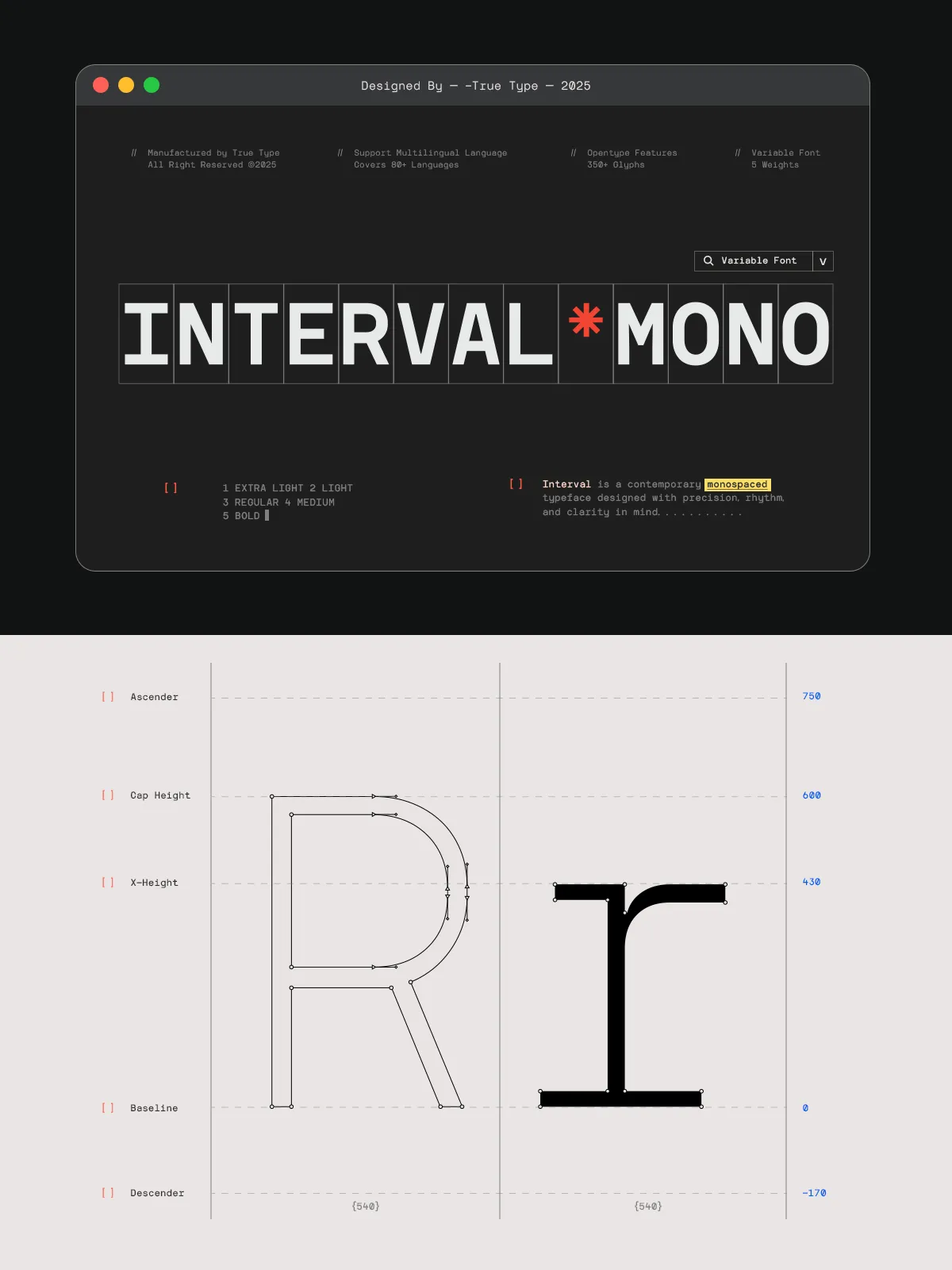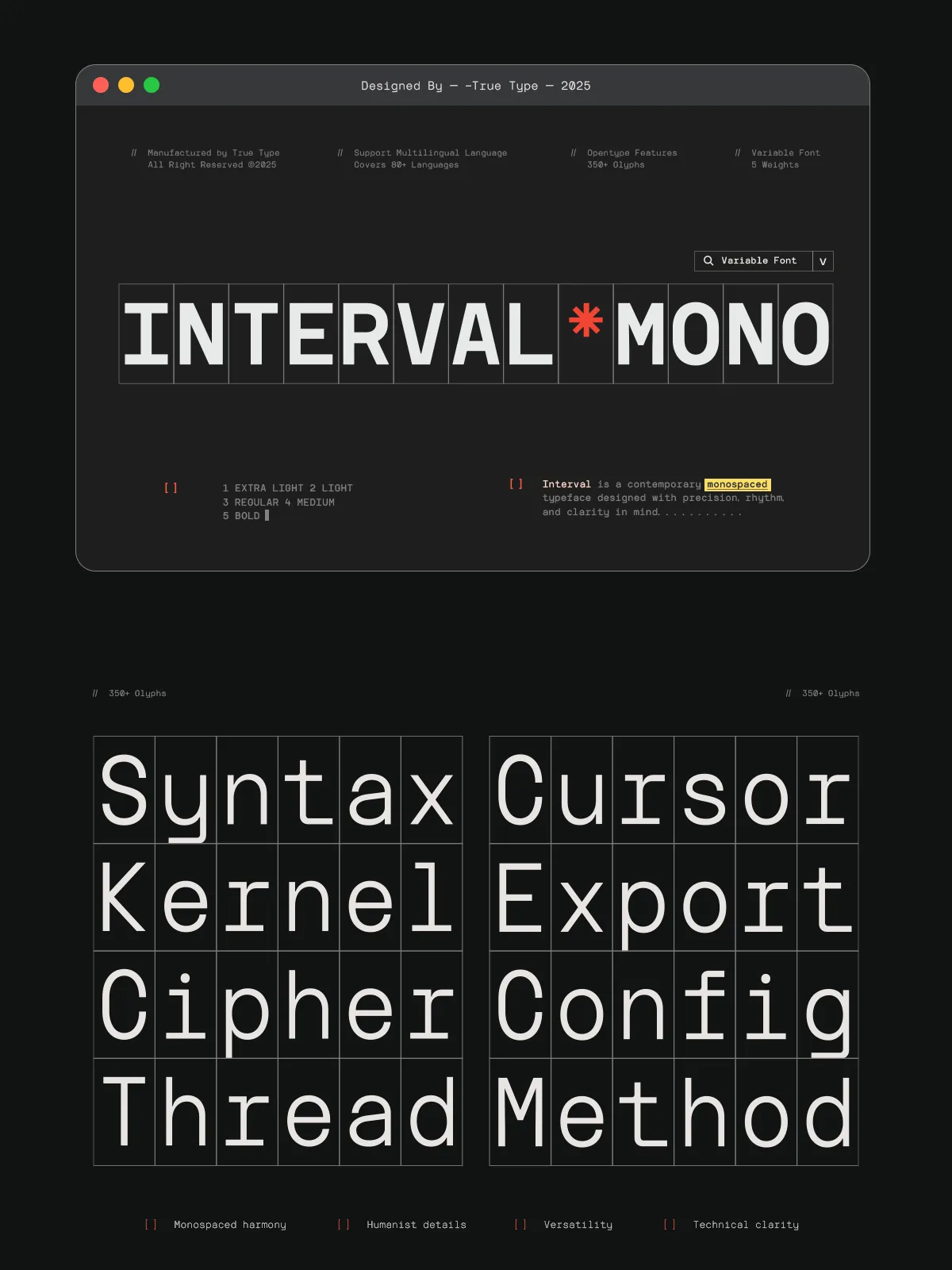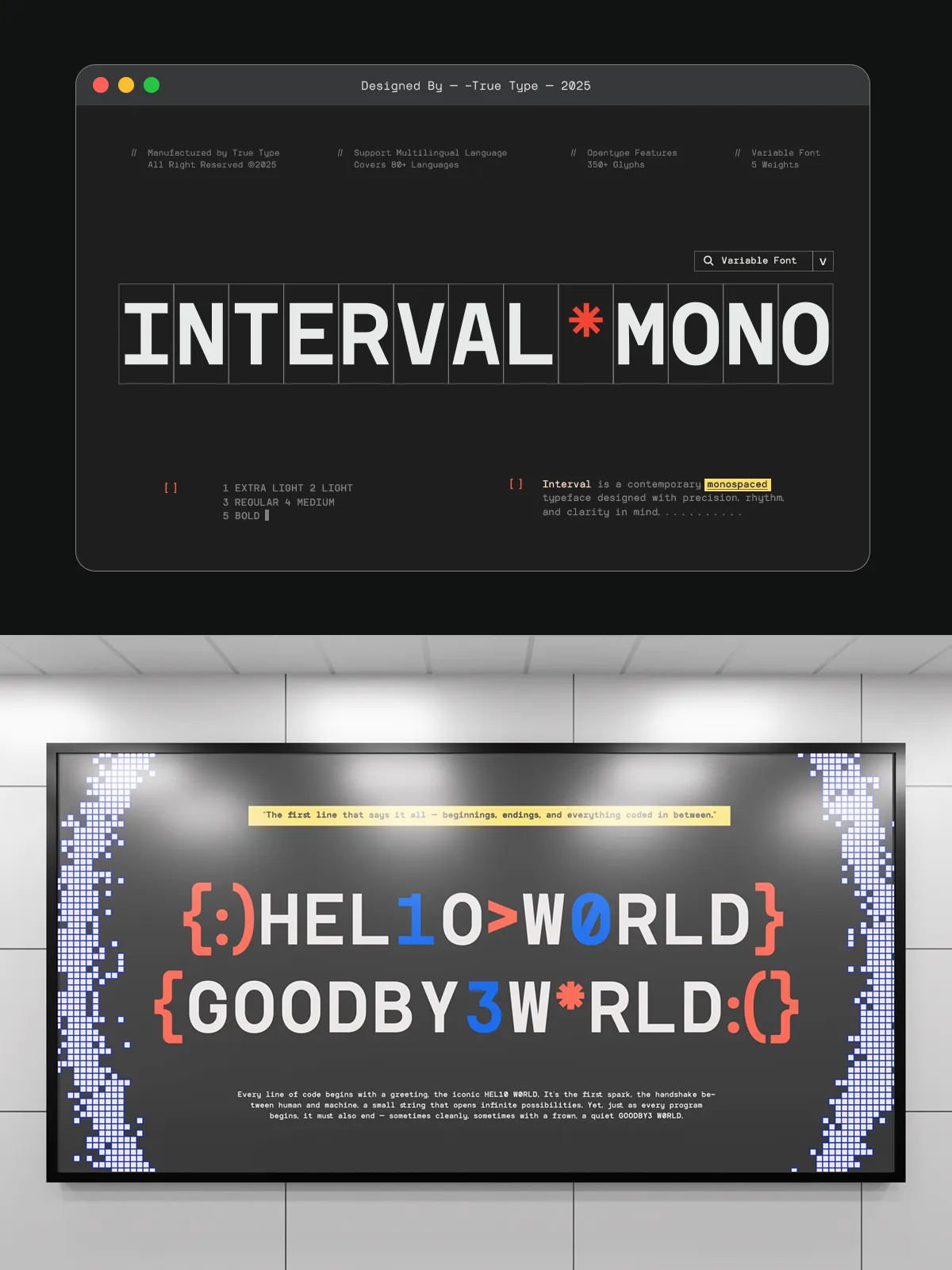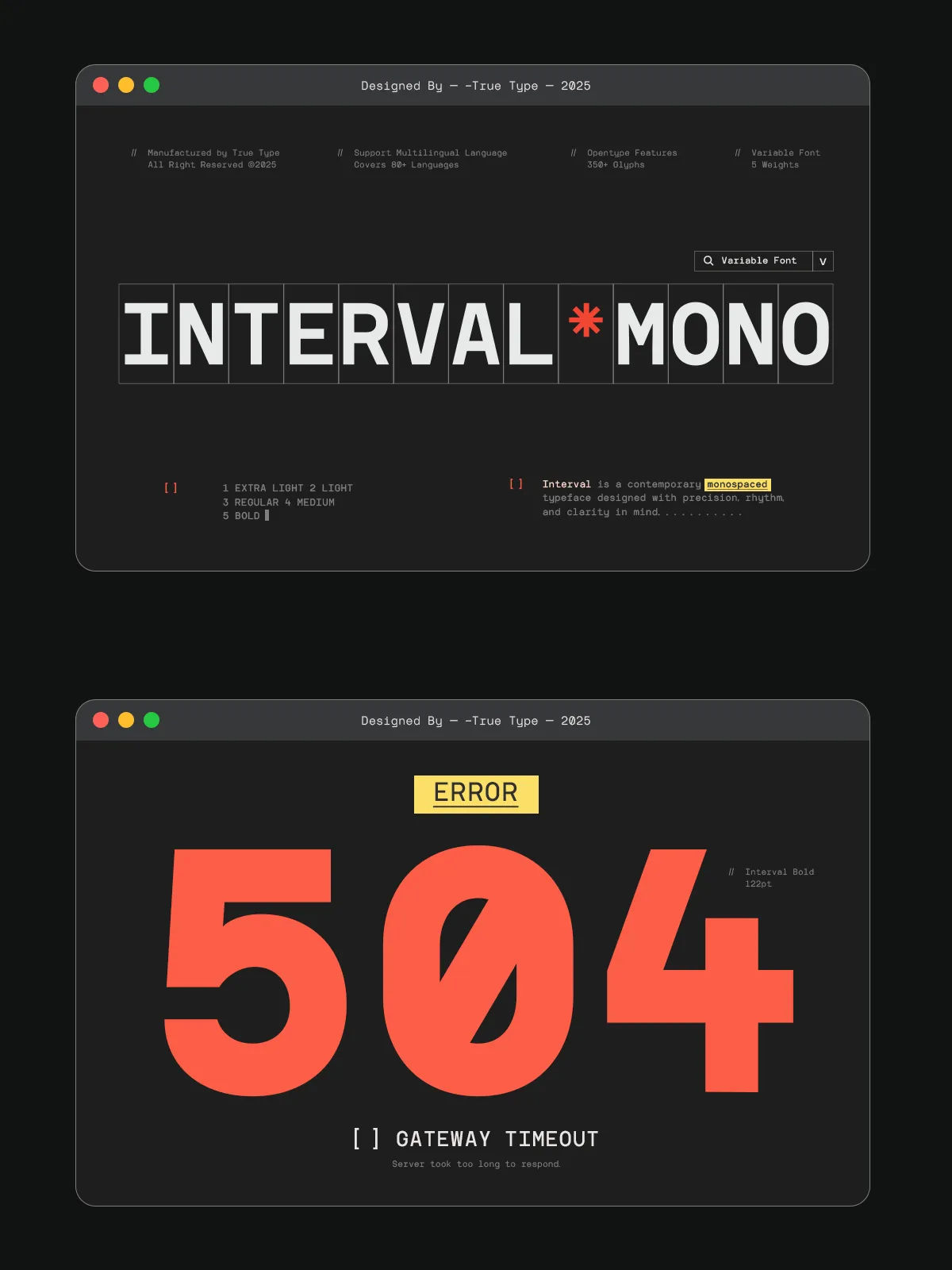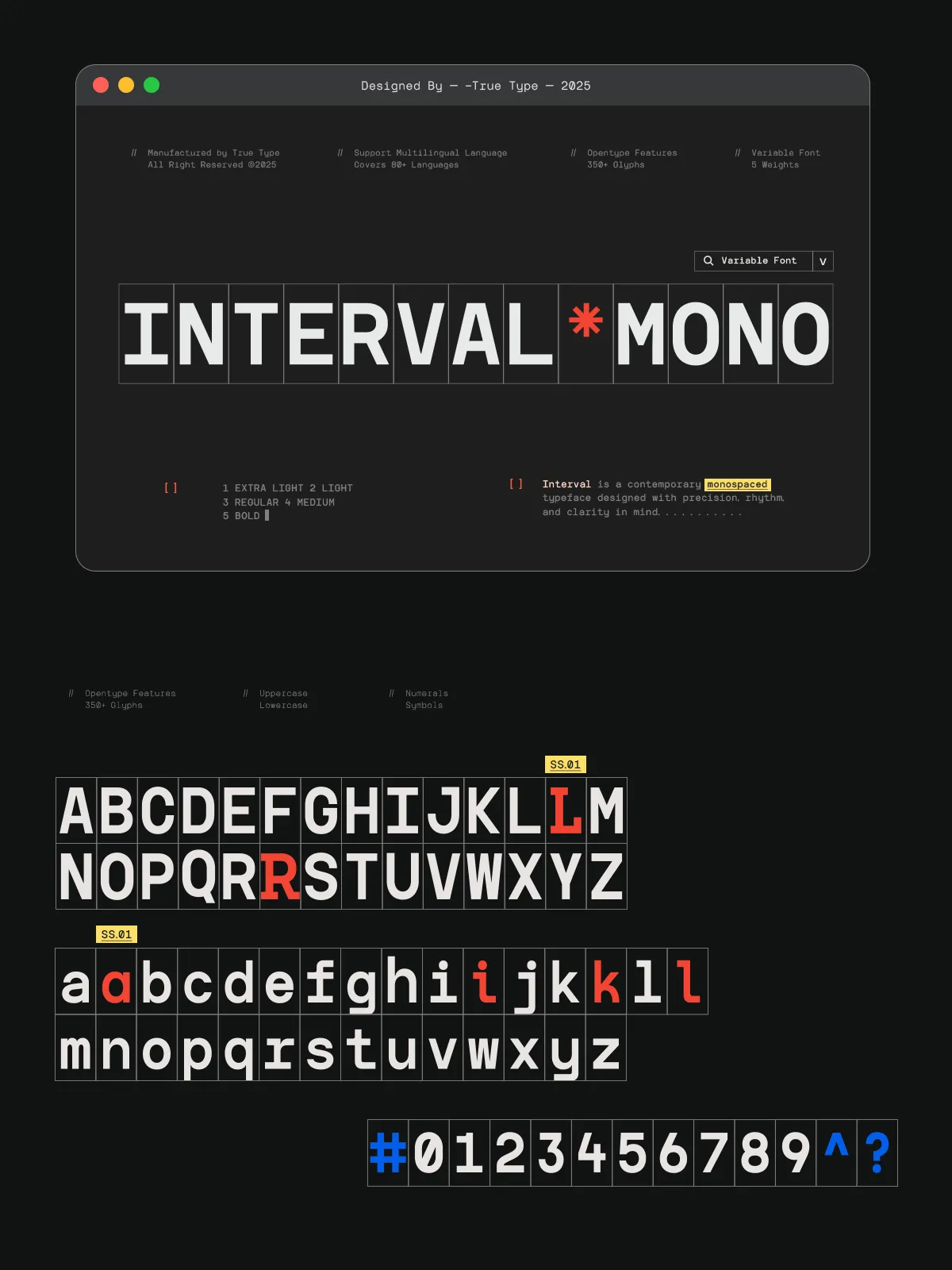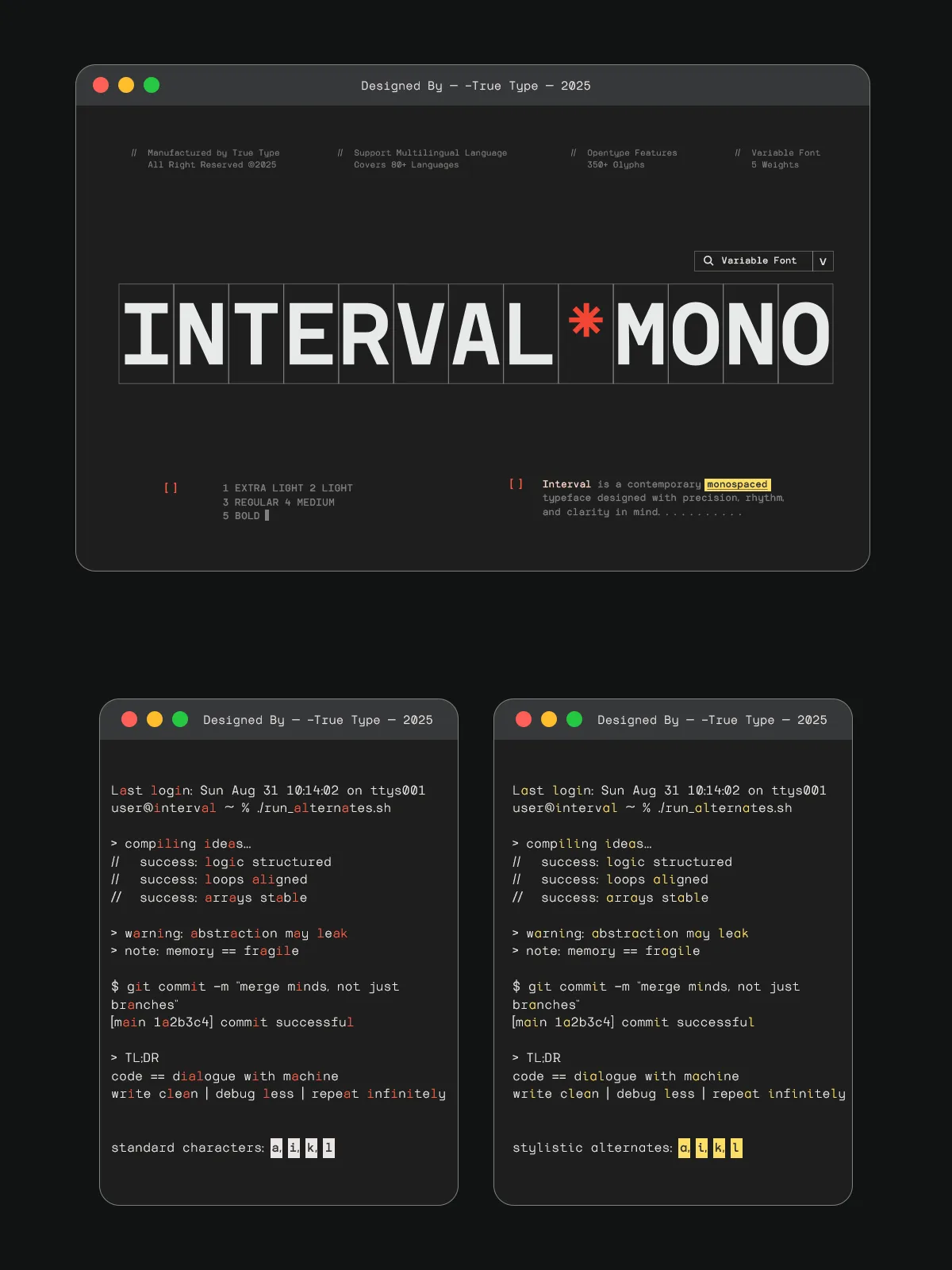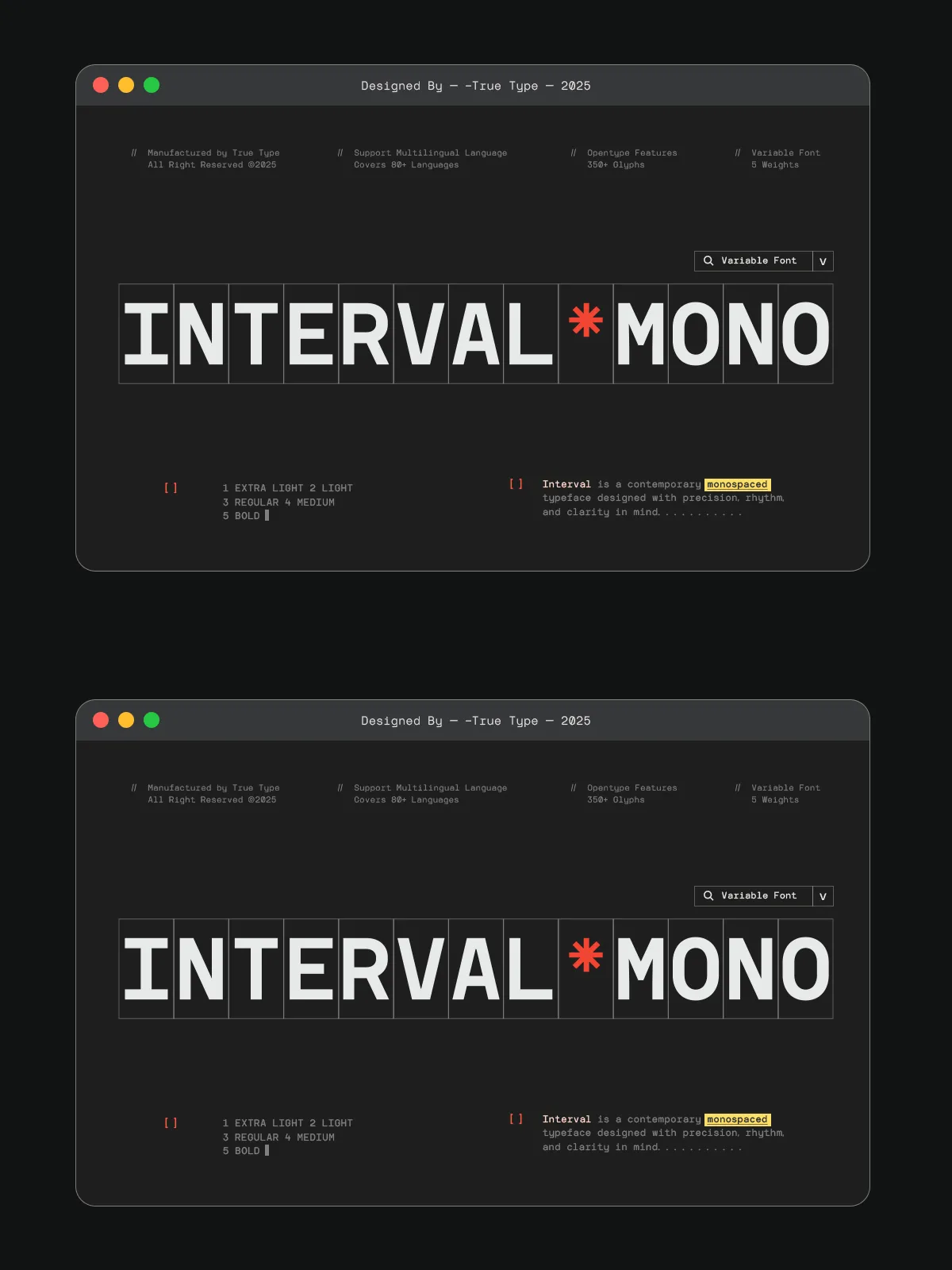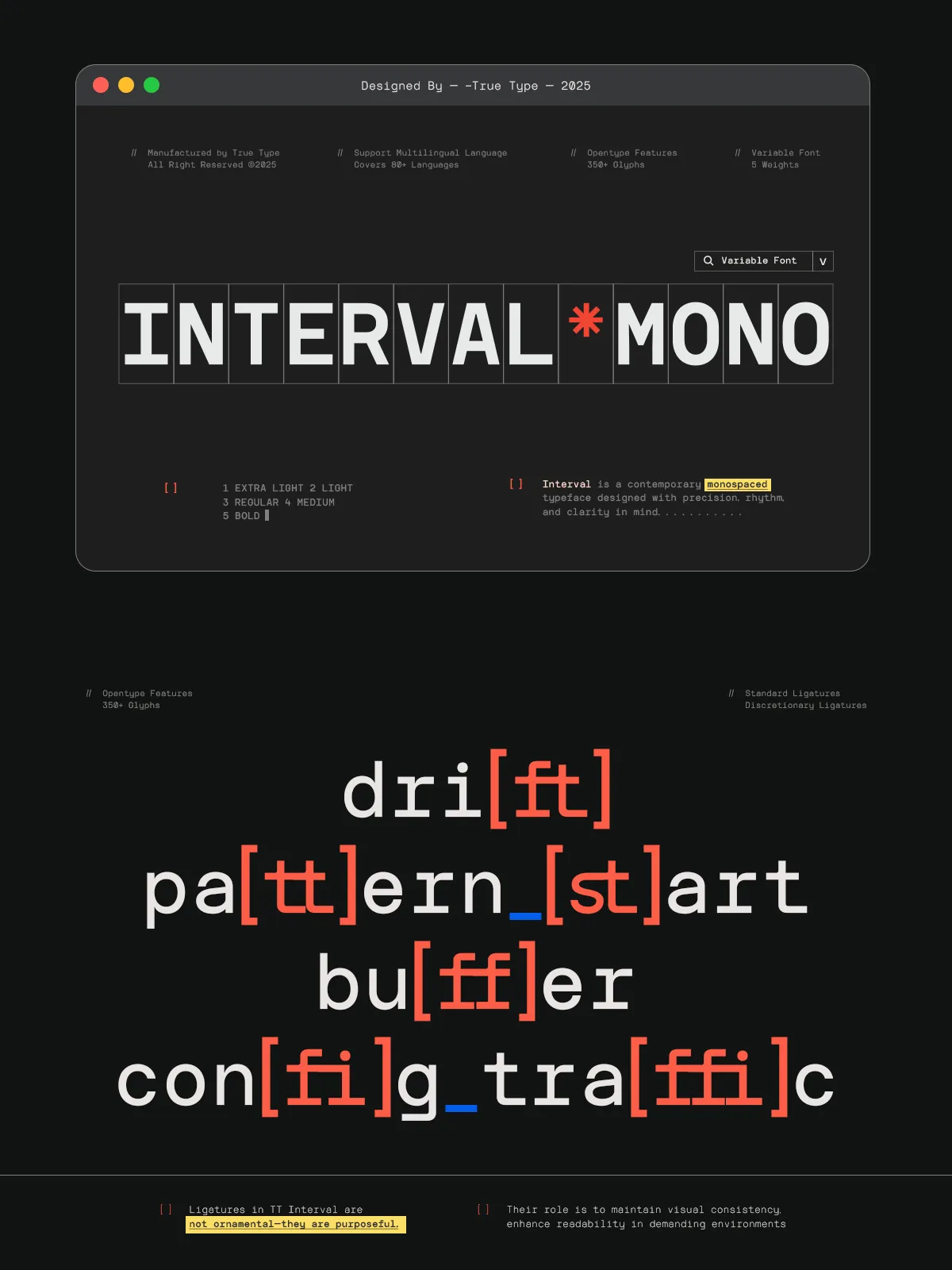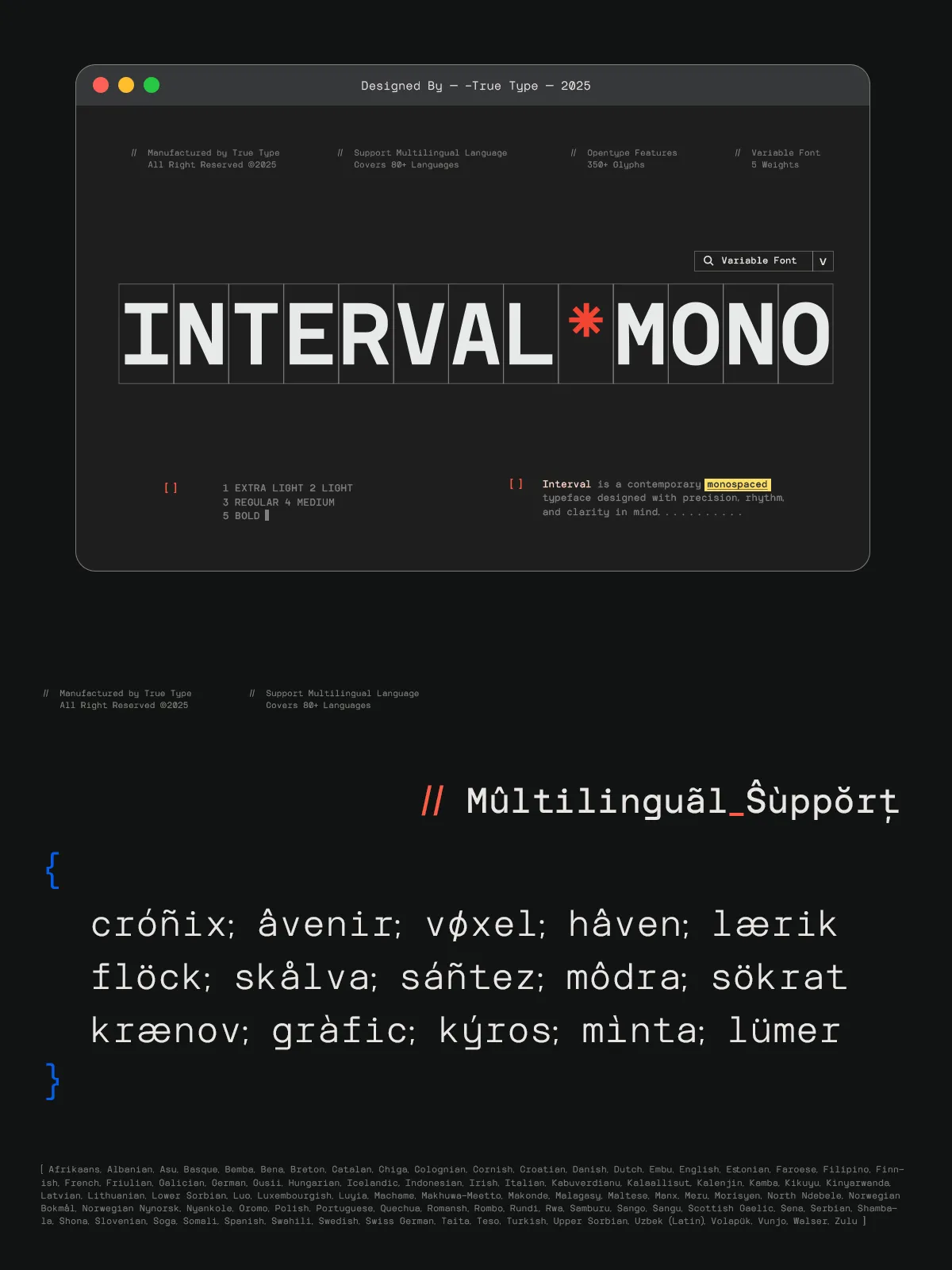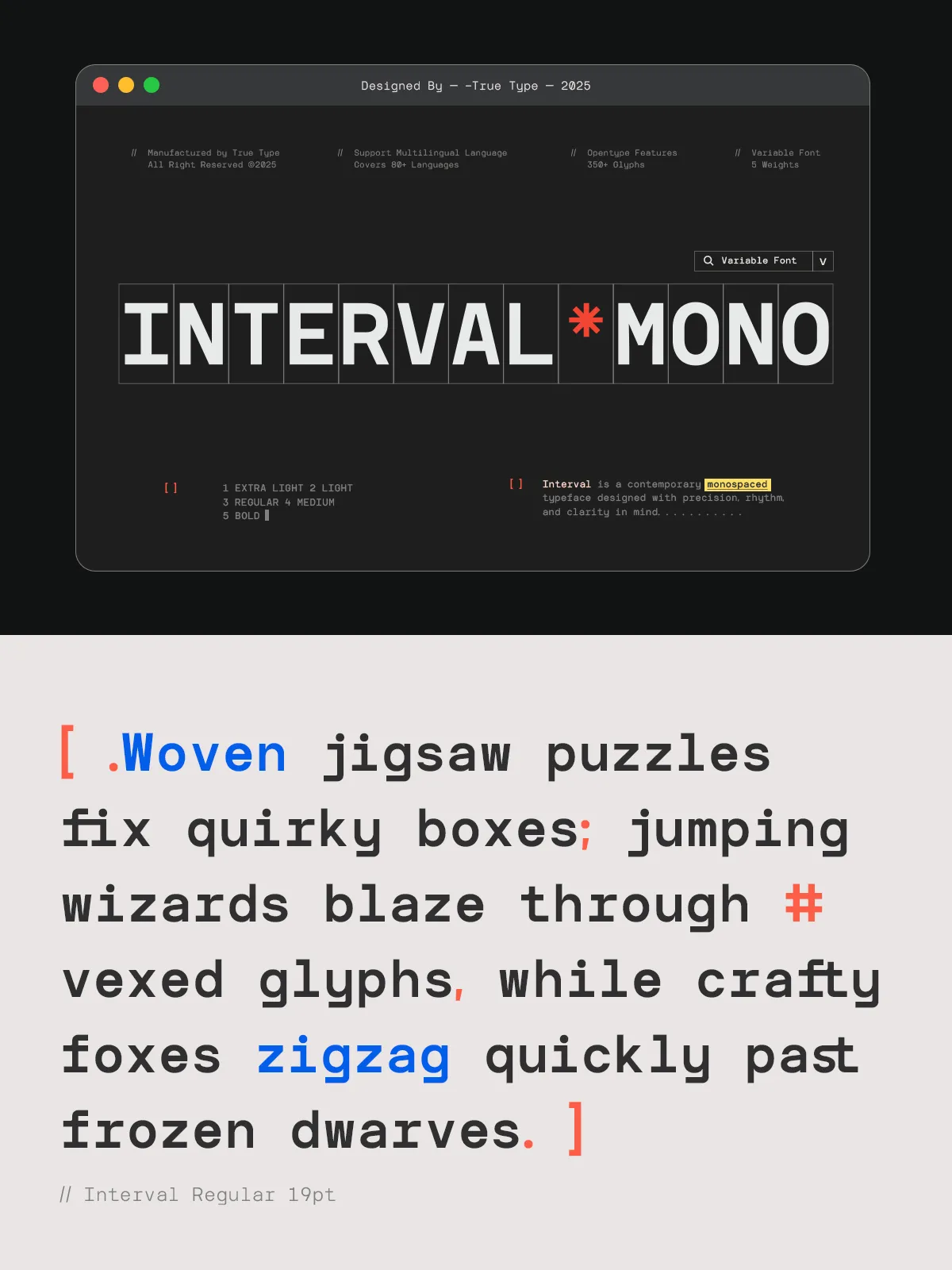
When you need typography that speaks with authority, consistency, and elegance, TRT Interval steps forward as the ideal choice. More than just a font, it’s a deliberate fusion of geometric discipline and human-centered design—crafted for creators who value both structure and soul. Inspired by the clean lines of classic monospace and geometric sans serif designs, TRT Interval redefines digital typography with a refined balance of function, rhythm, and aesthetic harmony. Whether you’re designing a user interface, writing code, crafting a brand identity, or shaping editorial content, this font delivers uncompromised clarity and expressive versatility.
Why TRT Interval Stands Out in a Crowded Design Landscape
1. Perfectly Balanced Monospaced Geometry
Every character in TRT Interval is constructed on a strict modular grid, ensuring uniform character widths and consistent spacing across all languages and scripts. This precision makes it indispensable for:
- Coding environments — where alignment and predictability are essential.
- Data visualization and terminal design — for clean, readable outputs.
- Editorial layouts — where rhythmic typographic flow enhances readability.
- Branding and digital interfaces — where identity must remain sharp and cohesive.
Yet, unlike impersonal mono-spaced fonts, TRT Interval introduces subtle, thoughtful variations in stroke modulation and glyph detailing, giving a sense of movement and warmth to an otherwise rigid structure.
2. A Human Touch in a Machine-Derived World
While rooted in geometry, TRT Interval refuses to feel machine-made. Select glyphs—like the lowercase ‘a’, ‘g’, and ‘s’—feature carefully calibrated curves and counter forms that reflect natural handwriting rhythms. These micro-details prevent visual fatigue and make the typeface more inviting, especially in long-form reading. The result? A font that’s technically flawless yet emotionally resonant—a true bridge between logic and creativity.
3. Designed for Dynamic Applications, Not Just Static Text
TRT Interval isn’t just for static designs. It thrives in dynamic environments:
- Web applications — with optimal character width and spacing, it renders cleanly at all screen sizes and resolutions.
- Mobile and tablet interfaces — its consistent spacing ensures touch targets and text blocks remain intuitive.
- Real-time code editors — the clear distinction between similar characters (e.g., O vs. 0, I vs. l) reduces errors and increases efficiency.
- Video titles and motion graphics — its clean lines and sharp contrasts translate beautifully across animation.
This adaptability is engineered into every glyph, not tacked on as an afterthought.
Technical Excellence for Professional Workflows
TRT Interval ships with robust OpenType support, including:
- Advanced ligatures for improved text flow
- Small caps, old-style and lining figures, fractions, and numerators/denominators
- Contextual alternates and stylistic sets for creative variation
- Full language coverage for Latin, Cyrillic, Greek, and extended European scripts
- Support for variable font (WOF2/VF) formats for scalable on-screen performance
With true kerning pairs and intelligent hinting across all weights, TRT Interval ensures typography remains sharp, readable, and consistent—across platforms, devices, and screen sizes.
Seamless Integration Across Design Ecosystems
TRT Interval is purpose-built for modern workflows:
- Design tools — seamlessly integrates with Figma, Sketch, Affinity Designer, and Adobe XD.
- Developer tools — ideal for terminal themes, syntax highlighting, and code blocks in documentation.
No matter where you work, TRT Interval fits in without friction.
Best Practices for Maximum Impact
- Pair with a clean sans-serif — such as Inter or Montserrat — for body text to create contrast without losing coherence.
- Use condensed weights for tight layouts — ideal for sidebars, navigation, or mobile menus.
- Apply expanded weights to headlines — to create visual authority in banners, posters, or landing pages.
- Opt for italics in pull quotes — the true italic style adds narrative depth without compromising readability.
- Always test at smaller sizes — TRT Interval maintains clarity down to 10px, ideal for small UI elements.
Unlock Your Next Project with TRT Interval
Stop relying on fonts that compromise clarity for style—or efficiency for appearance. With TRT Interval, you get both. This is typography that understands purpose, performance, and beauty—unified in a single, powerful typeface. Download the full family today and transform how your words are seen, read, and remembered. Whether you’re coding the future, writing a brand story, or designing an interface for human connection, TRT Interval ensures your work stands out—not just for what it says, but how it says it.